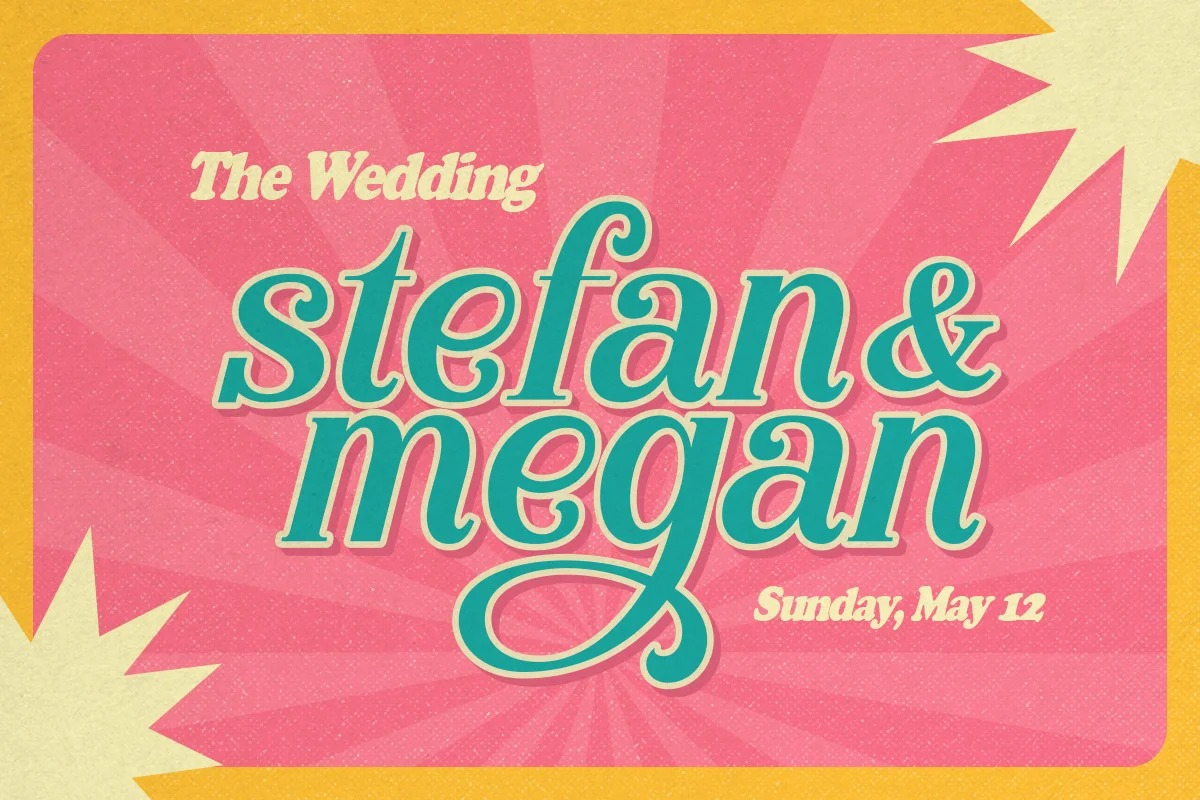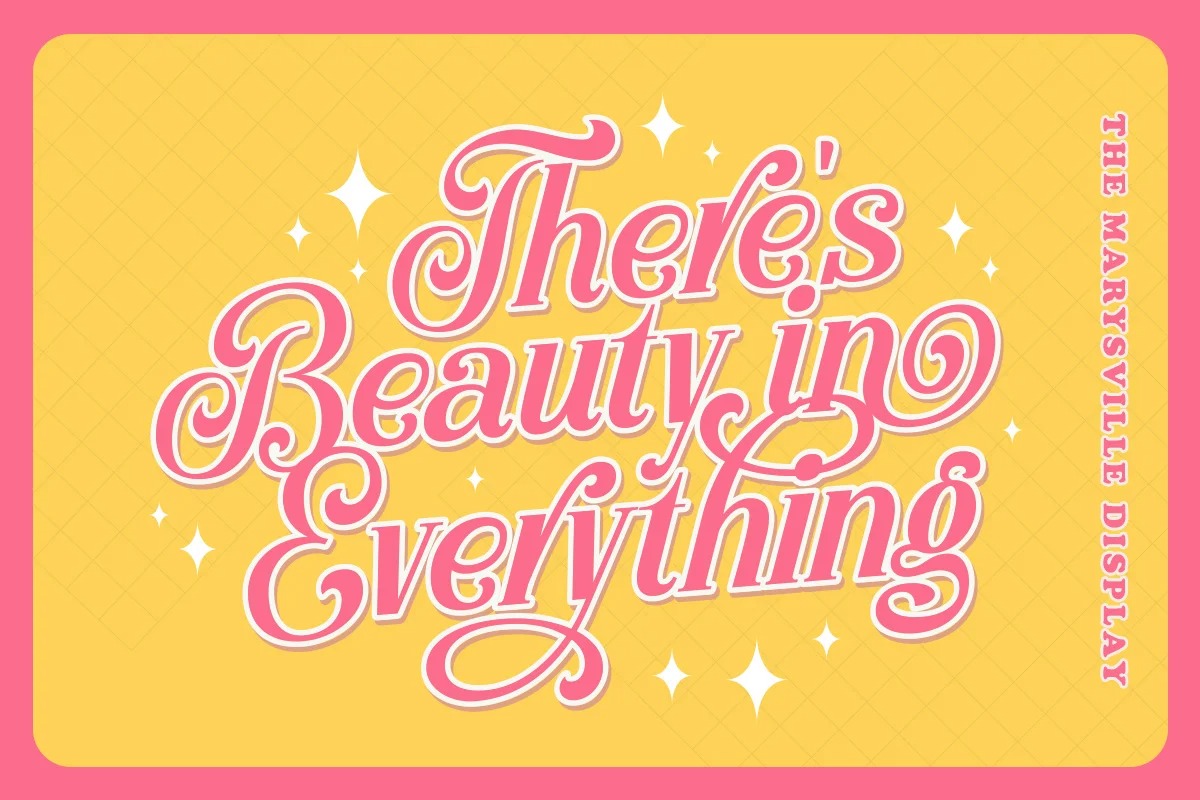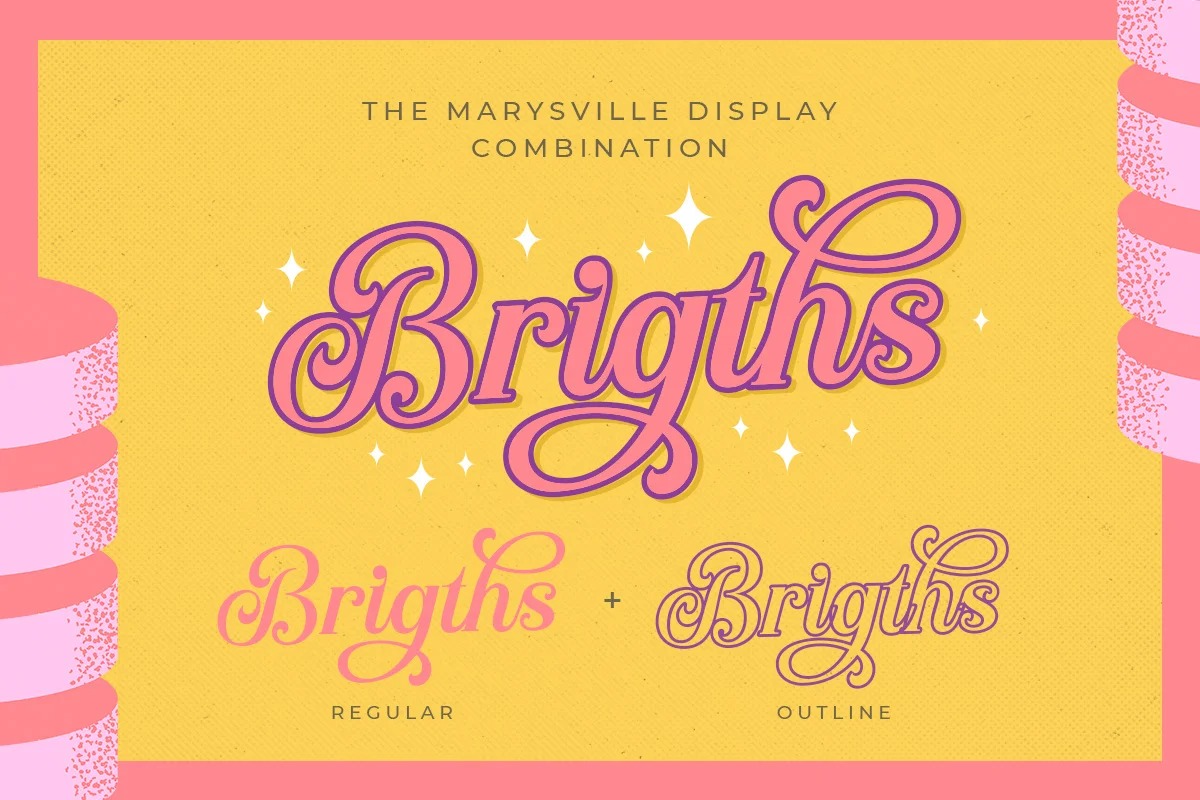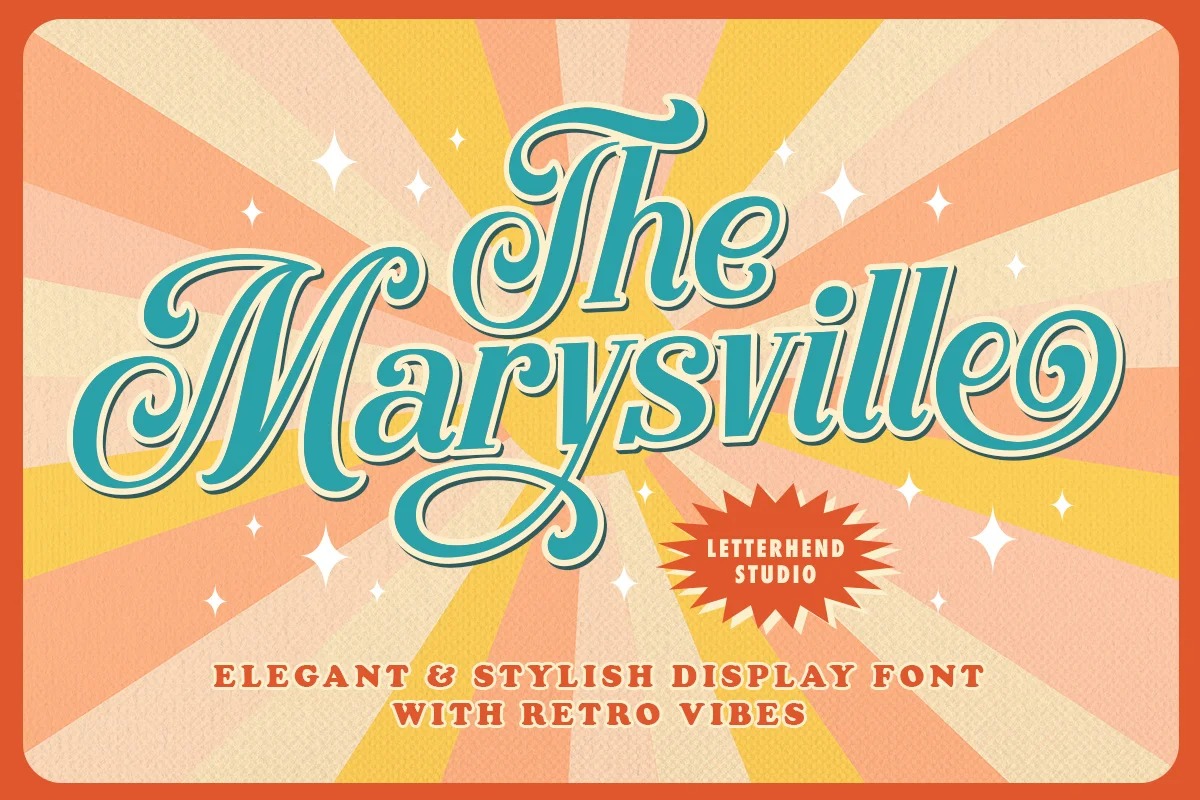
Marysville Serif Typeface
This font is beautyful serif and modern font combined with a sweet touch and beautifully curved each letter. A retro bold script which will bring you back to 60s feel. This font perfectly made to be applied especially in logo, and the other various formal forms such as invitations, labels, logos, magazines, books, greeting / wedding cards, packaging, fashion, make up, stationery, novels, labels or any type of advertising purpose.